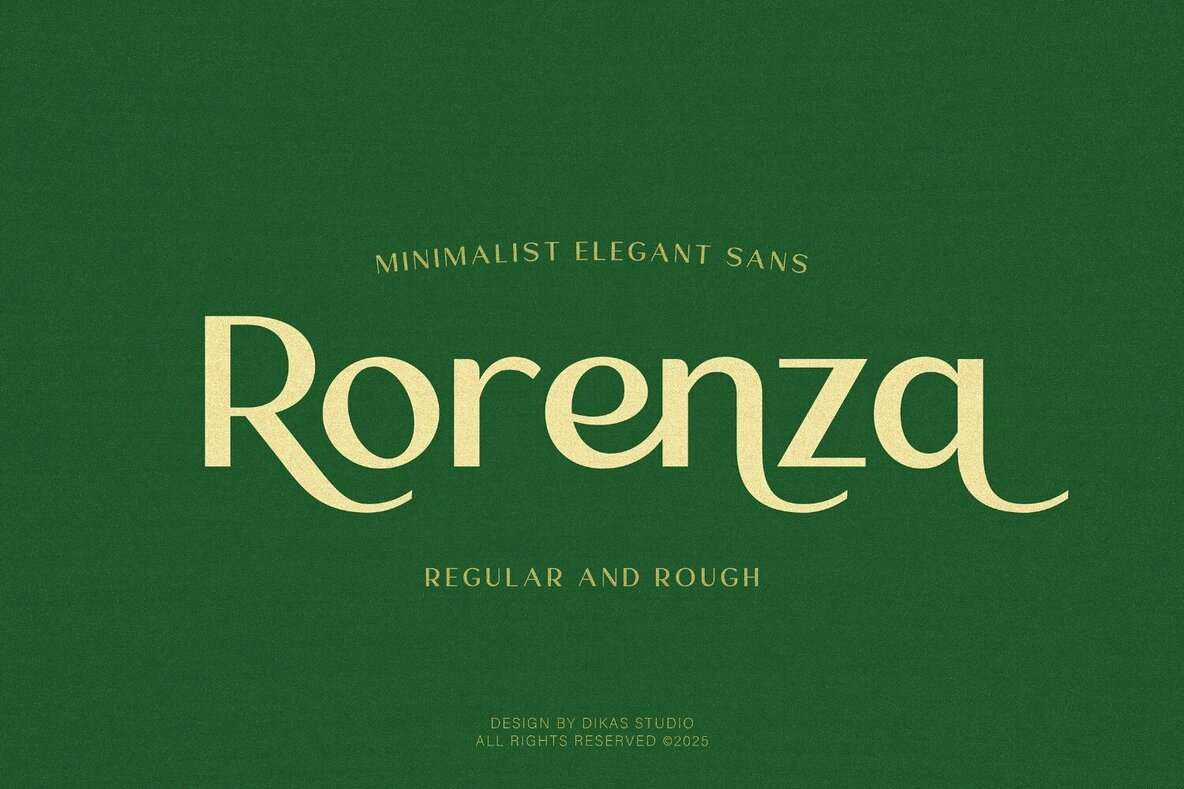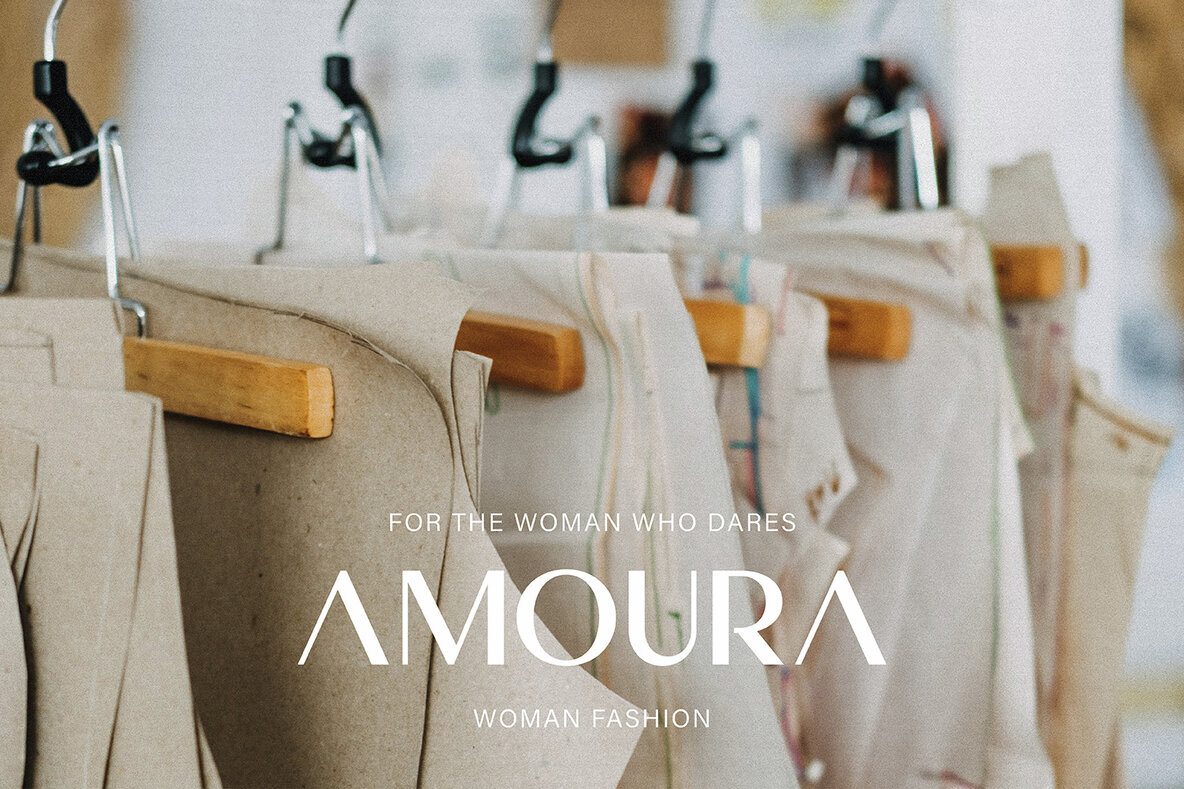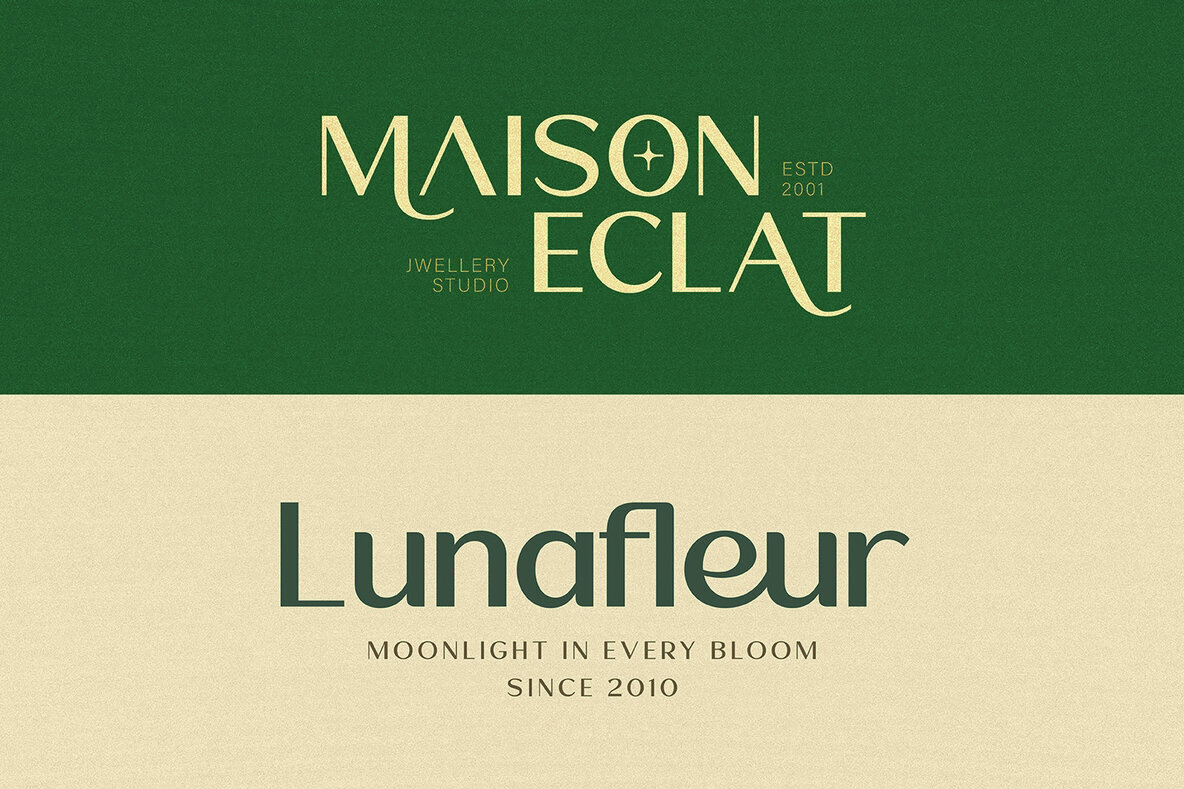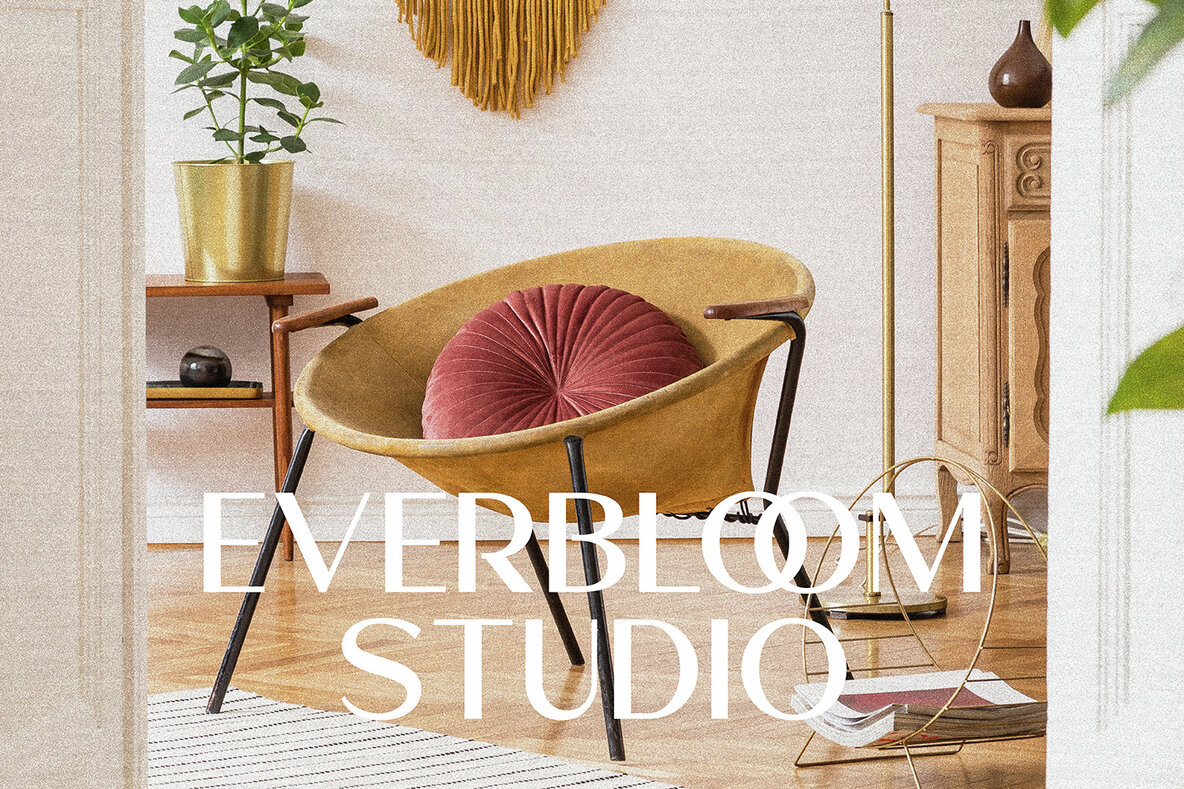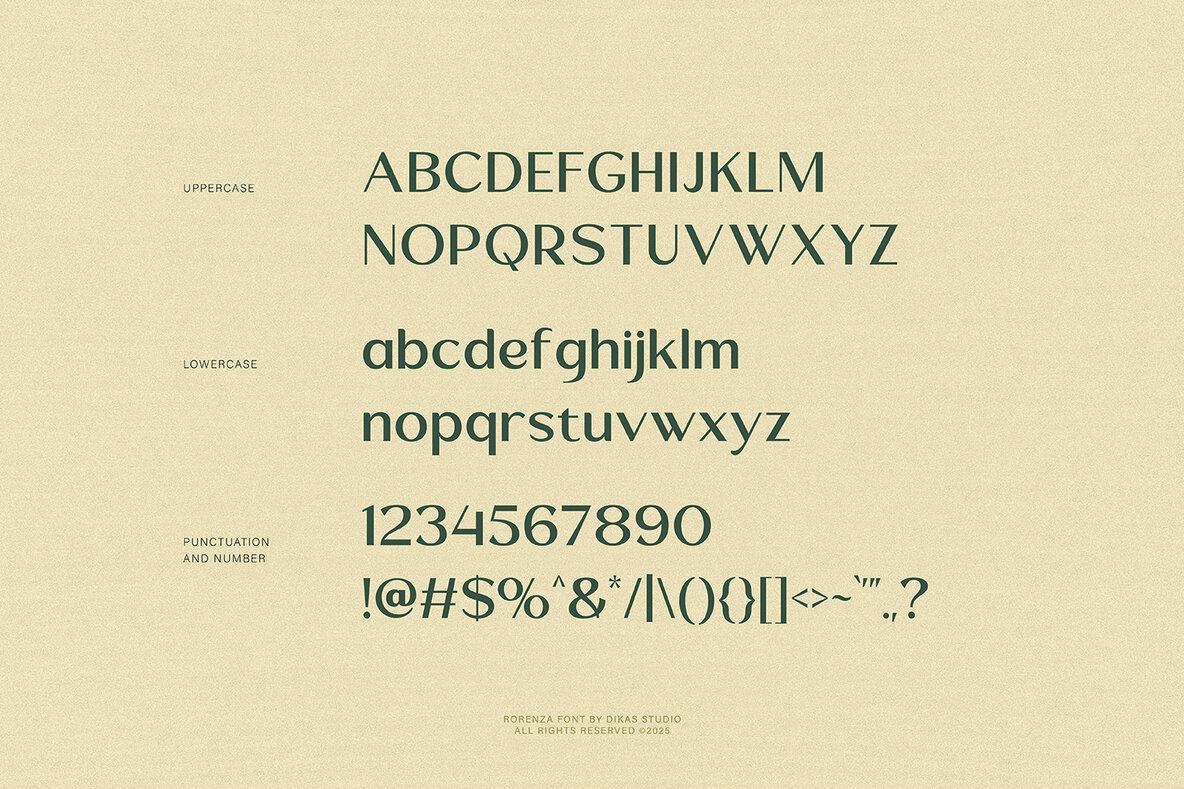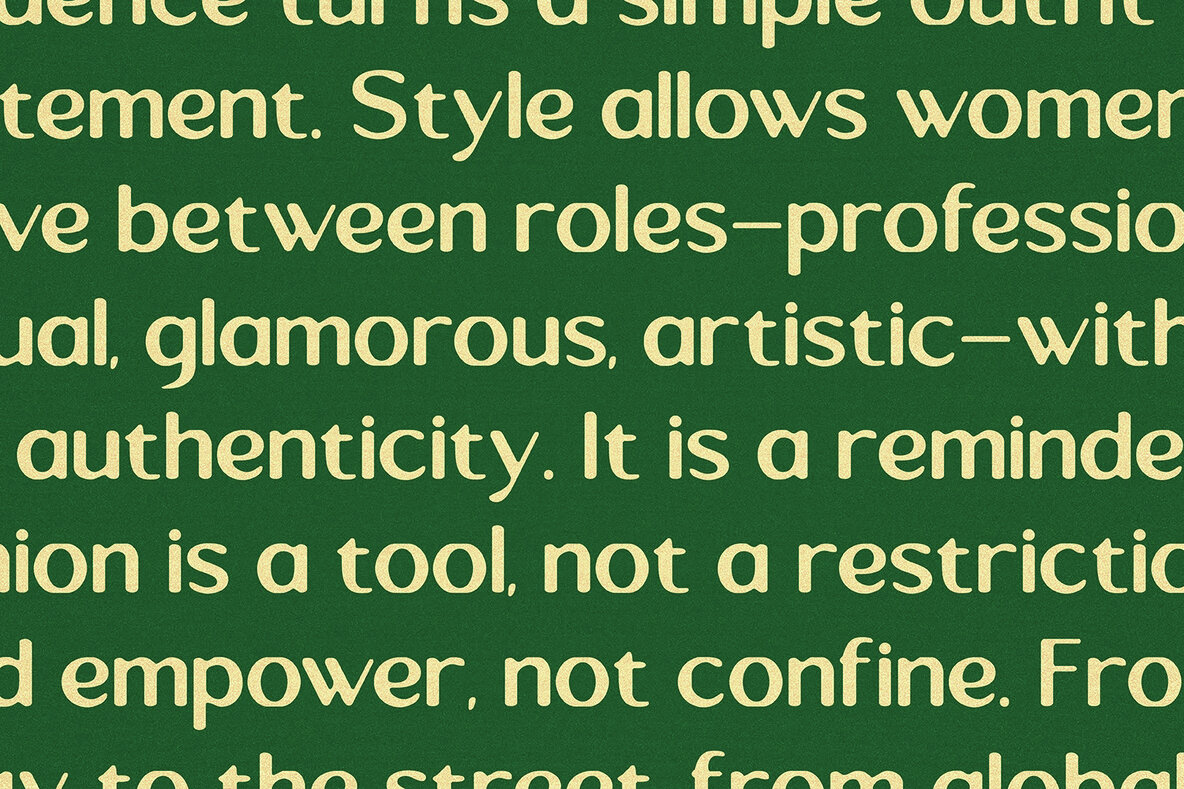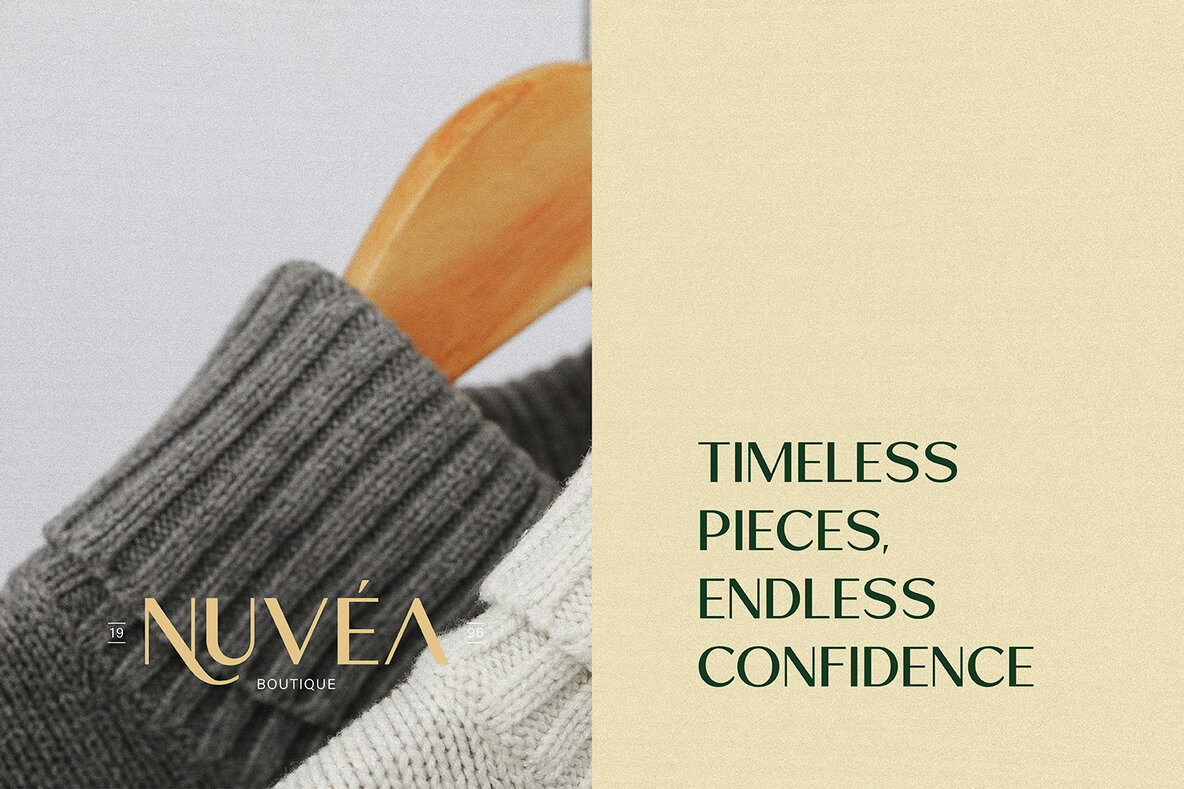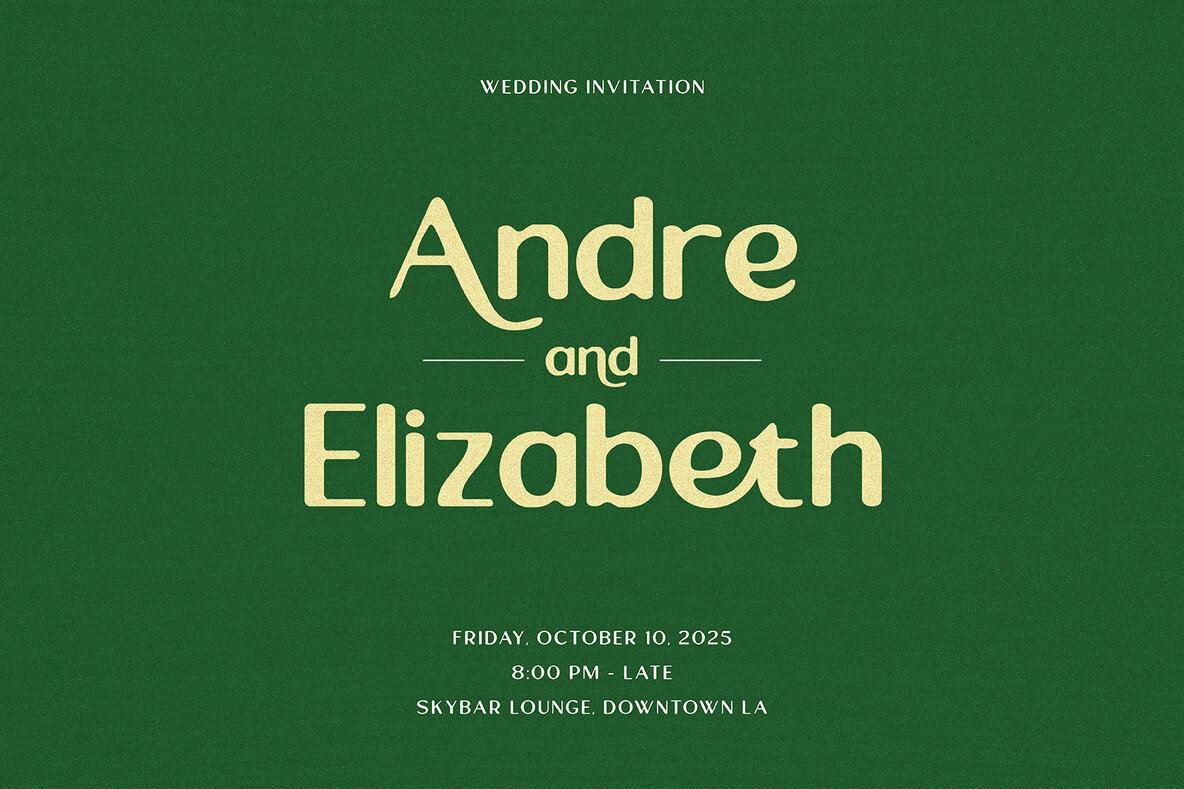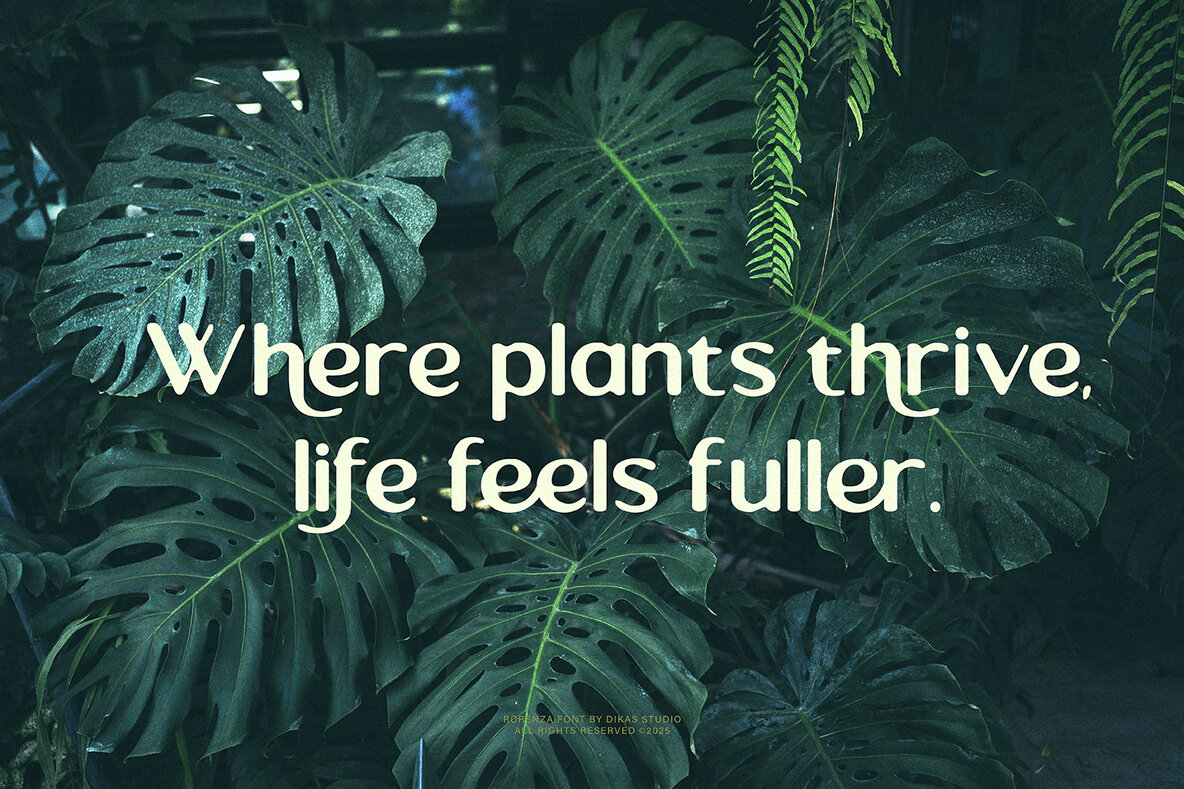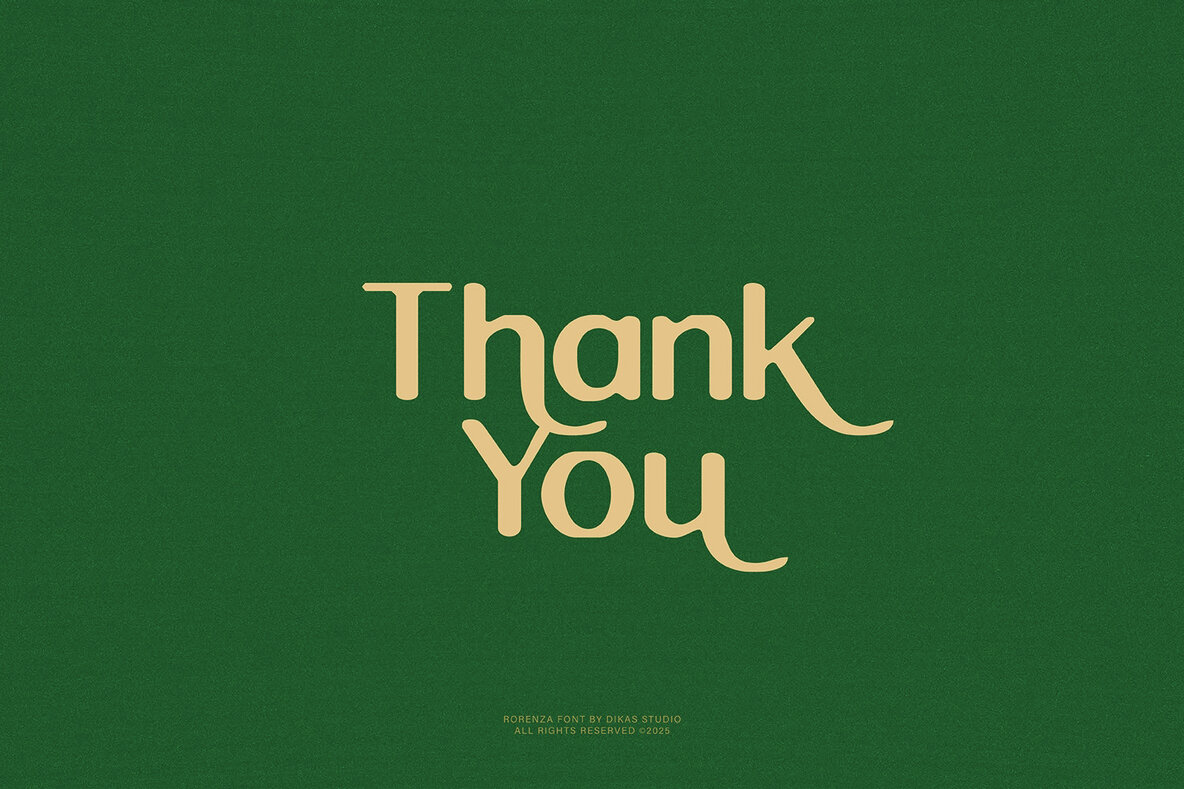
Rorenza Font
Rorenza Regular
Rorenza Rough
Rorenza offers a blend of modern simplicity and refined curves, creating a distinctive sans serif typeface that adapts seamlessly to a variety of design needs. Its clean structure and carefully balanced spacing provide excellent readability, whether used in logos, headlines, posters, or editorial layouts. The font's harmonious proportions make every word stand out with a subtle sophistication. Choose between Regular and Rough styles to match your desired aesthetic—ranging from polished contemporary projects to designs with a handcrafted feel. The versatility of Rorenza ensures consistent visual impact across both digital and print media. Ideal for branding, Rorenza is a strong choice for projects seeking a timeless and sophisticated touch.Rorenza Sans Serif Font